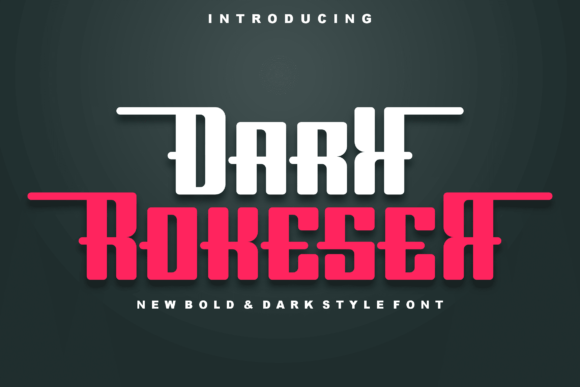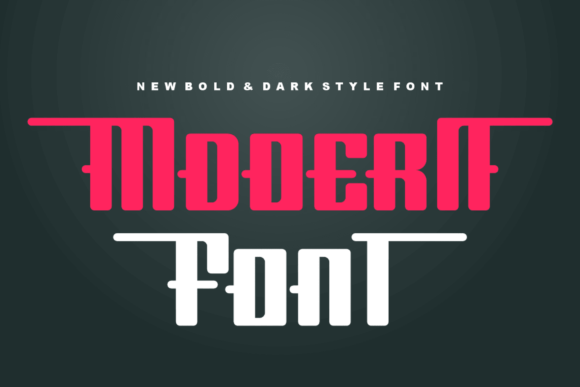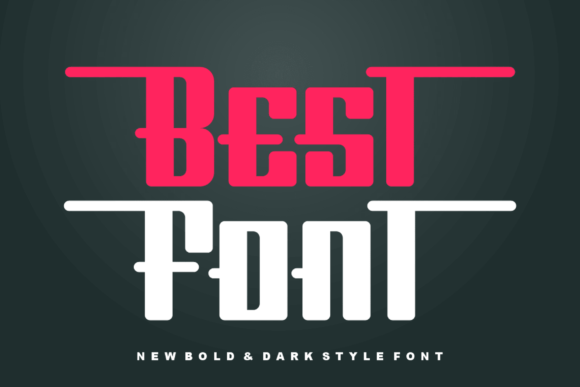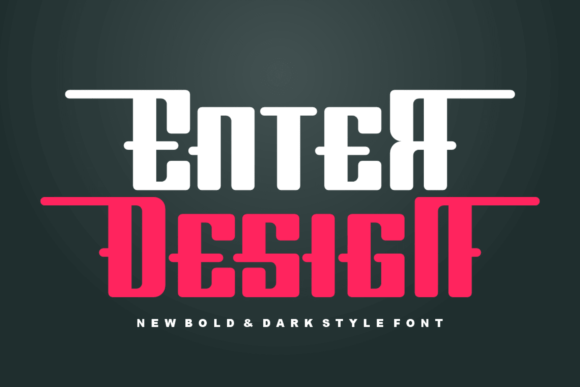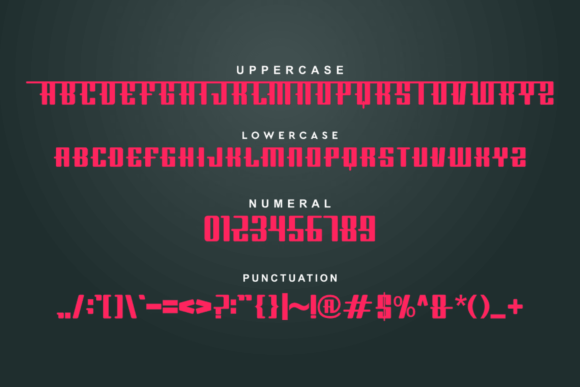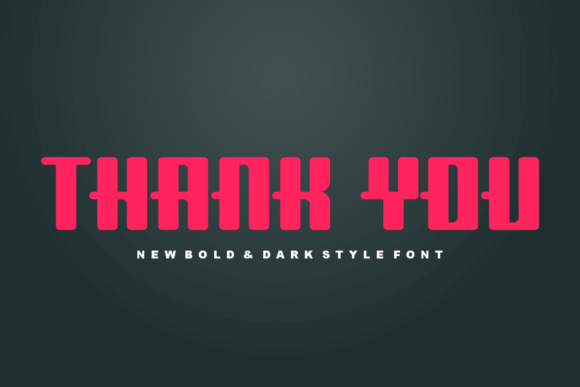
Dark Rokeser
Dark Rokeser: A Bold and Unique Slab Serif Font
Dark Rokeser is a bold and unique slab serif font designed for branding projects. This versatile typeface looks outstanding across various applications, from logos and t-shirt printing to export designs.
Key Features of Dark Rokeser
• Bold Design: Offers thick, block-like serifs for impact[2].
• Unique Style: Features distinctive letterforms.
• Versatile Appeal: Adapts well to numerous contexts.
• Strong Presence: Creates commanding visual impact[3].
When using Dark Rokeser in your designs, keep these tips in mind:
• Try it for headlines or display text to showcase its bold style[3].
• Use its unique character for distinctive branding.
• Take advantage of its sturdy structure for impactful designs[4].
• Let its versatility enhance various contexts.
To sum up, Dark Rokeser is an excellent choice for designers seeking a bold and unique slab serif font. Its versatility makes it perfect for various branding projects. Whether you’re creating logos, designing t-shirts, or developing export materials, Dark Rokeser offers the perfect blend of boldness and uniqueness.
Furthermore, Dark Rokeser’s distinctive design allows it to shine in contexts where both impact and authenticity are key. From brand identity to marketing materials, this font can elevate your projects with its commanding style. Also, its bold yet readable appearance works particularly well in designs that aim to make a strong impact[3].
In conclusion, Dark Rokeser truly captures the essence of bold branding in slab serif typography. Its ability to work well across so many different uses shows how flexible it can be. Therefore, for those wanting to add a touch of bold uniqueness to their work, Dark Rokeser can enhance any design with its distinctive style. Ultimately, it’s perfect for designers aiming to make a strong, memorable impact across many different kinds of creative projects.